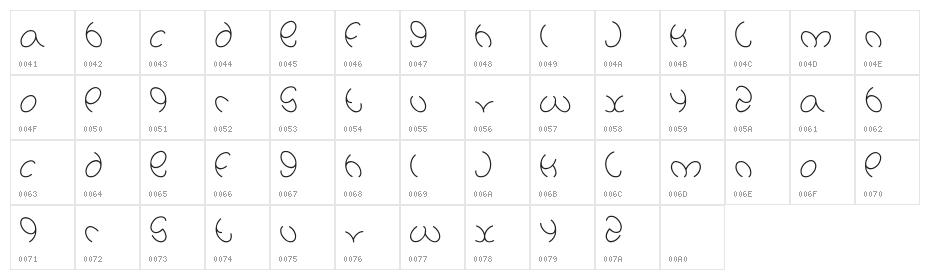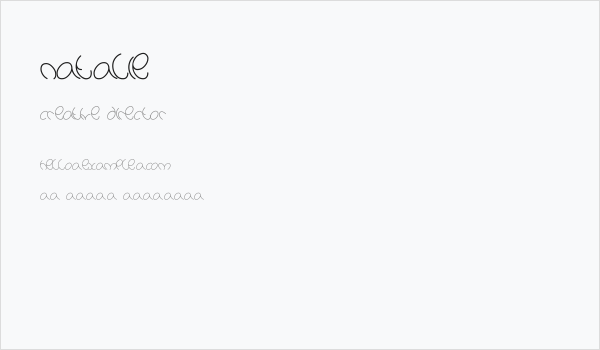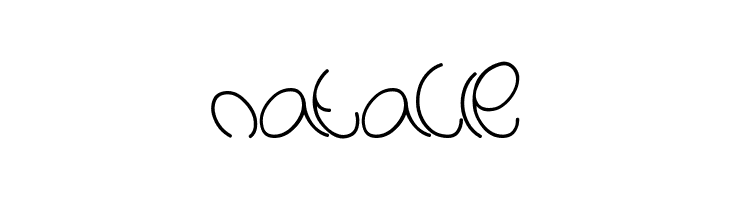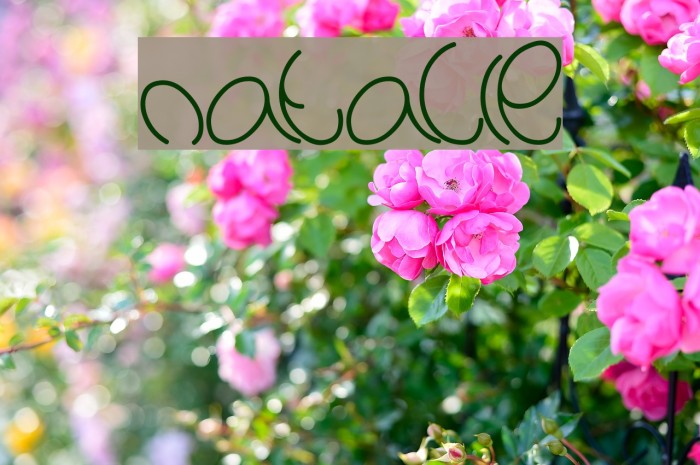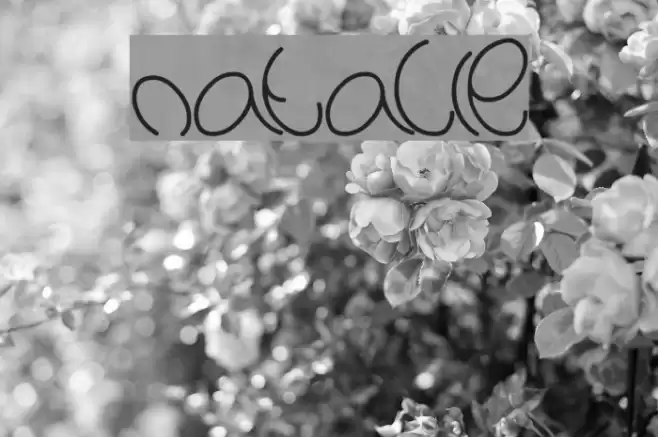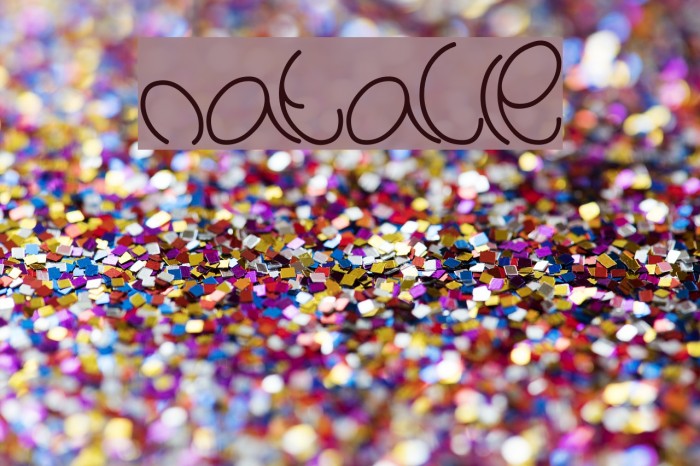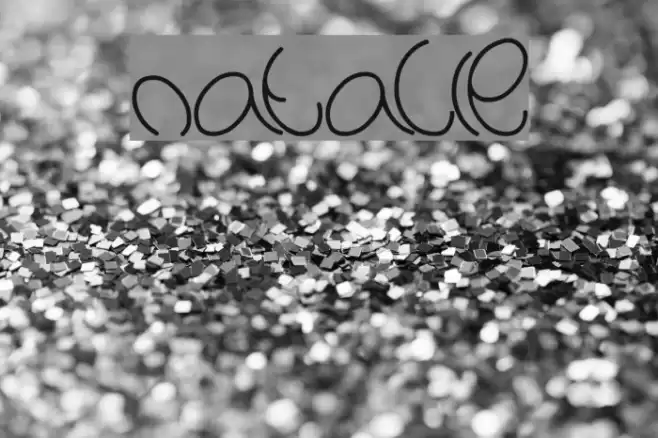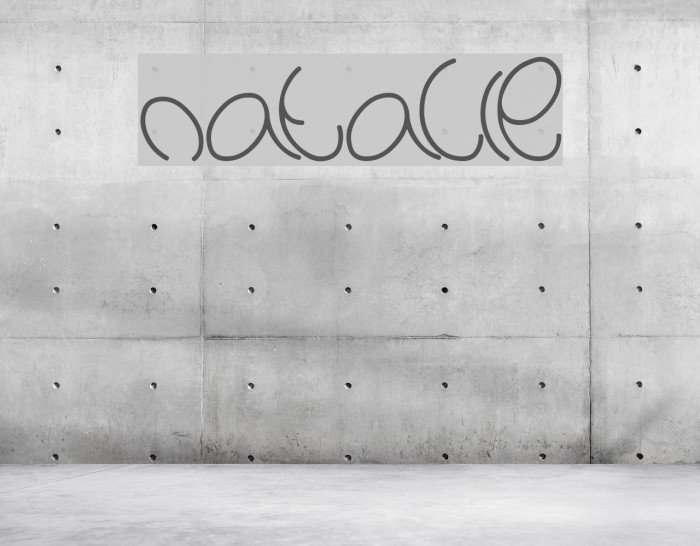
natalie Font
natalie Description
This font features a unique, flowing script style with a modern twist. Each character is crafted with smooth, continuous strokes that create an elegant and artistic appearance. The letters are interconnected, giving a sense of fluidity and movement. The overall design is minimalistic yet expressive, making it suitable for creative and contemporary projects. The font maintains a consistent line thickness throughout, providing a harmonious and balanced look. Its distinctive style is both eye-catching and versatile, perfect for adding a personal touch to any design.
| Use Case | Logos, Invitations, Artistic projects |
| Proposed Projects | Ideal for wedding invitations, branding, logos, and artistic posters. |